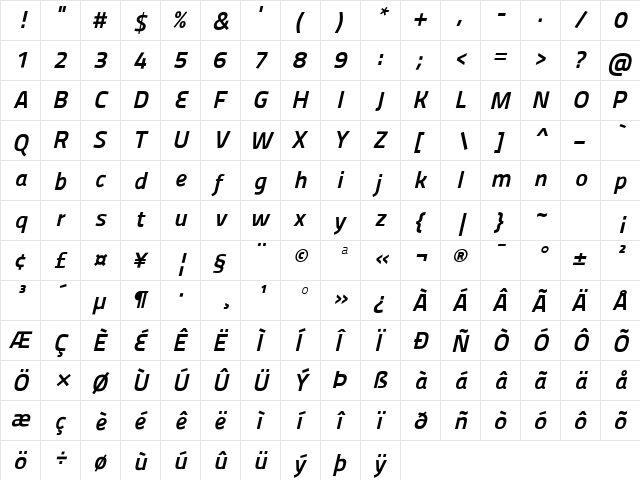
Panefresco 800wt Italic
Design Context for Panefresco 800wt Typeface
Panefresco 800wt is a composed and adaptable typeface that performs quietly and consistently across a wide range of design contexts. The slanted form adds forward momentum and visual energy.
Pro Tip: Try Panefresco 800wt for annotation and caption copy alongside an upright companion — the contrast in angle creates a dynamic but ordered typographic system.